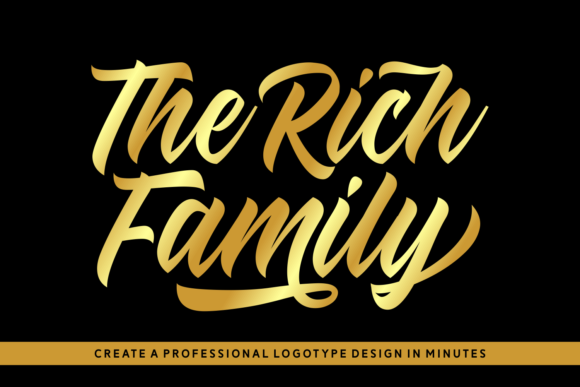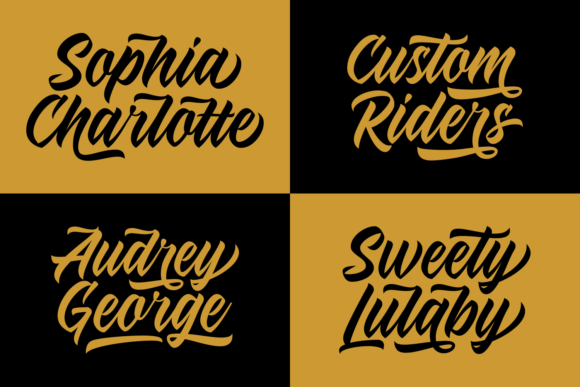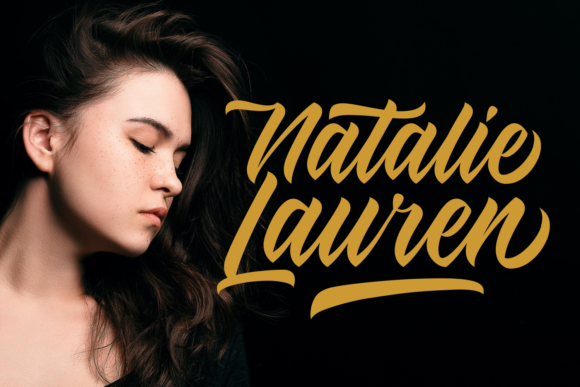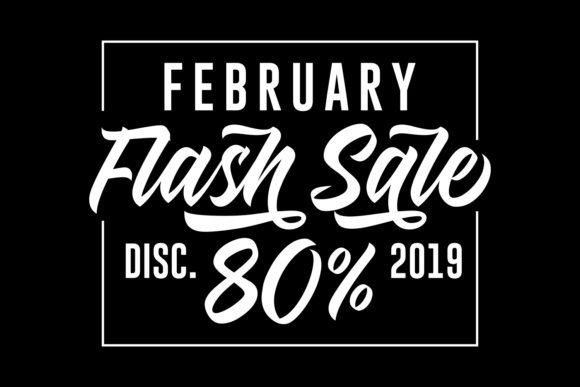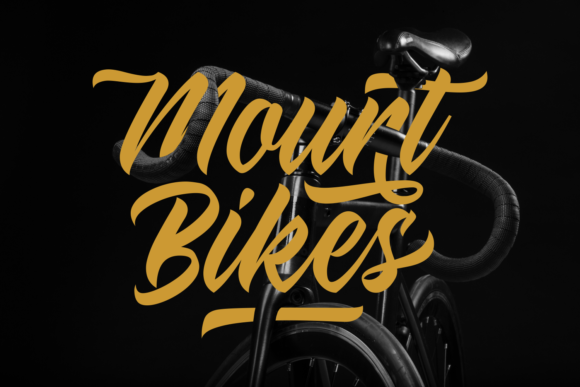
The Rich Family Font
About The Rich Family Font
The Rich Family is a strong typeface. Its bold letters are perfect for adding a striking, yet luxurious look to your designs.